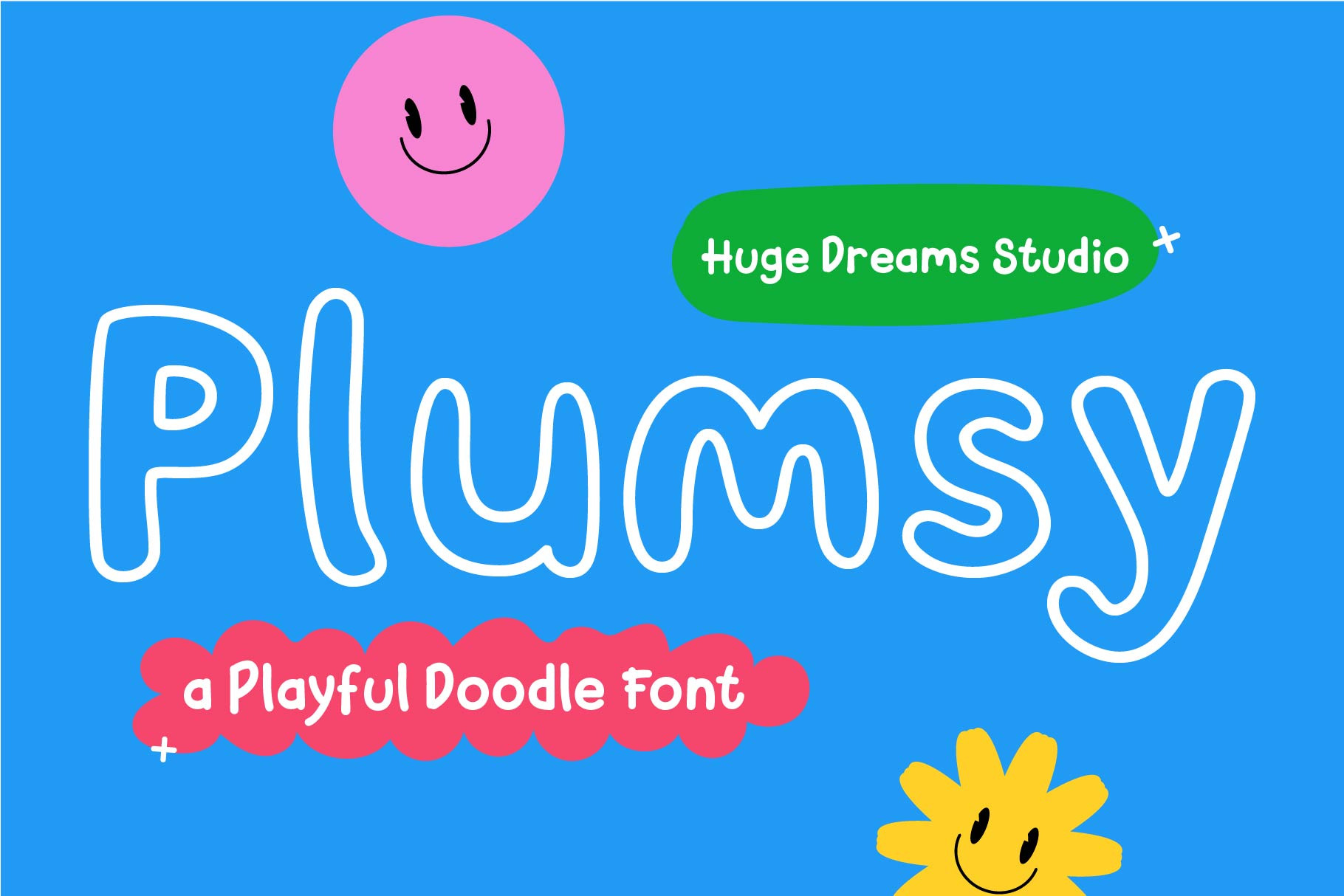
Plumsy – Outline Handwriting Font
Plumsy – Outline Handwriting Font is a playful and charming typeface designed to bring a casual, hand-drawn feel to your projects. Its outline stroke style mimics the look of doodled handwriting, giving your text a fun and approachable personality. Perfect for invitations, posters, stickers, logos, and creative crafts, Plumsy combines the warmth of handwritten letters with a unique outlined twist. Whether used for bold titles or decorative accents, this outline handwriting font adds a cheerful and lively touch to any design.
Plumsy – Outline Handwriting Font features:
- Punctuation & Numbers